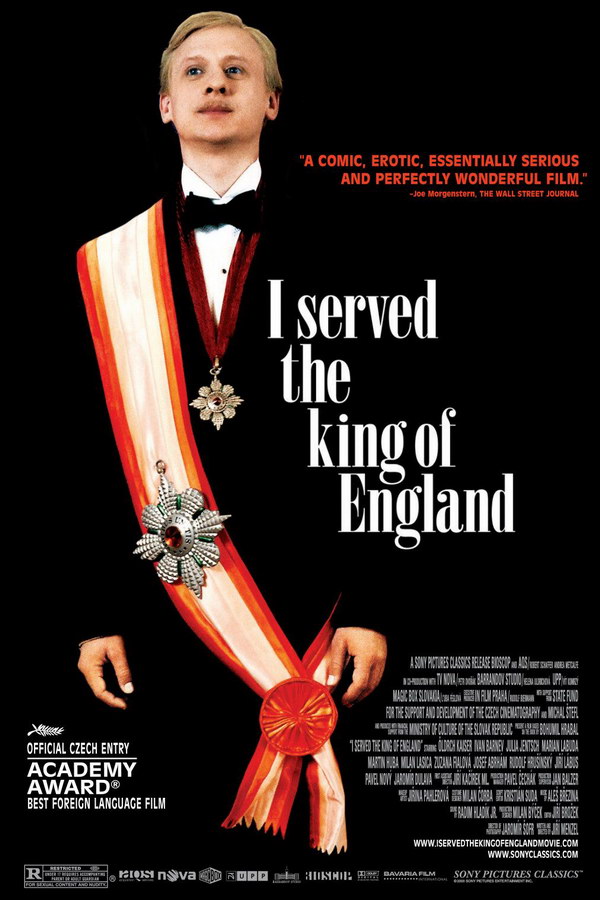
I Served the King of England Font
The poster's movie title font resembles Bodoni Poster Compressed, a font variation specifically created for posters by Cahuncey H. Griffith. This commercial font can be further explored here.